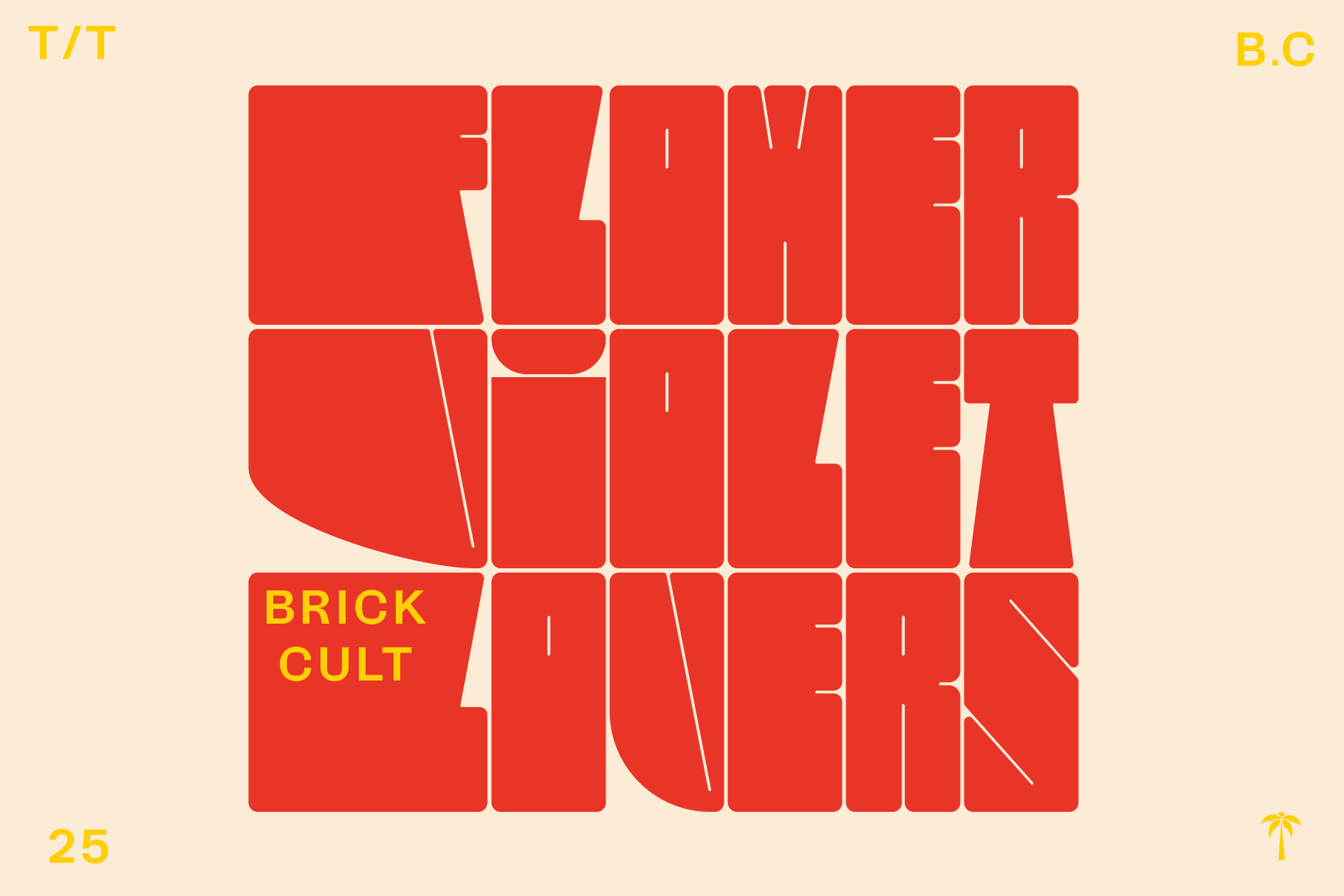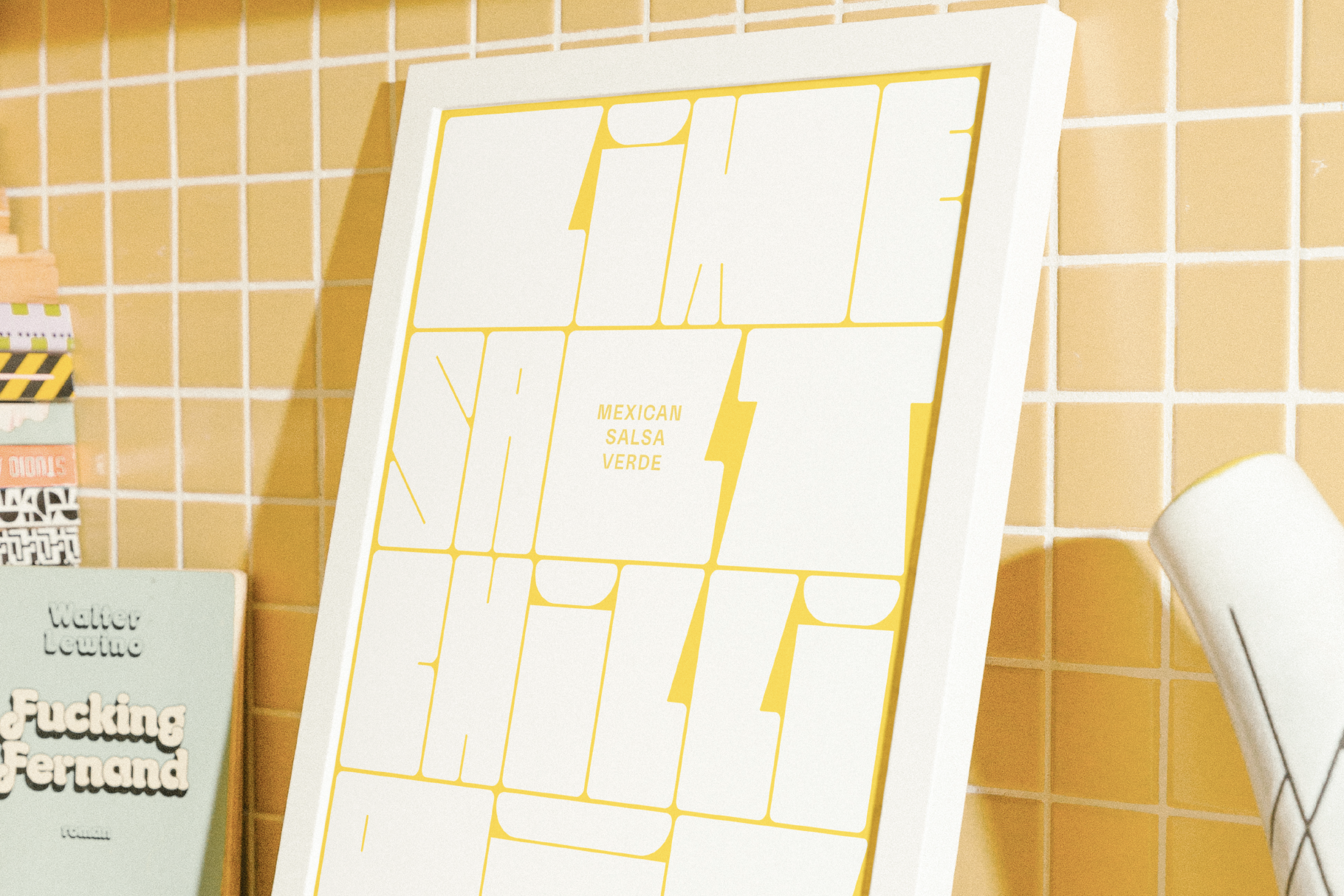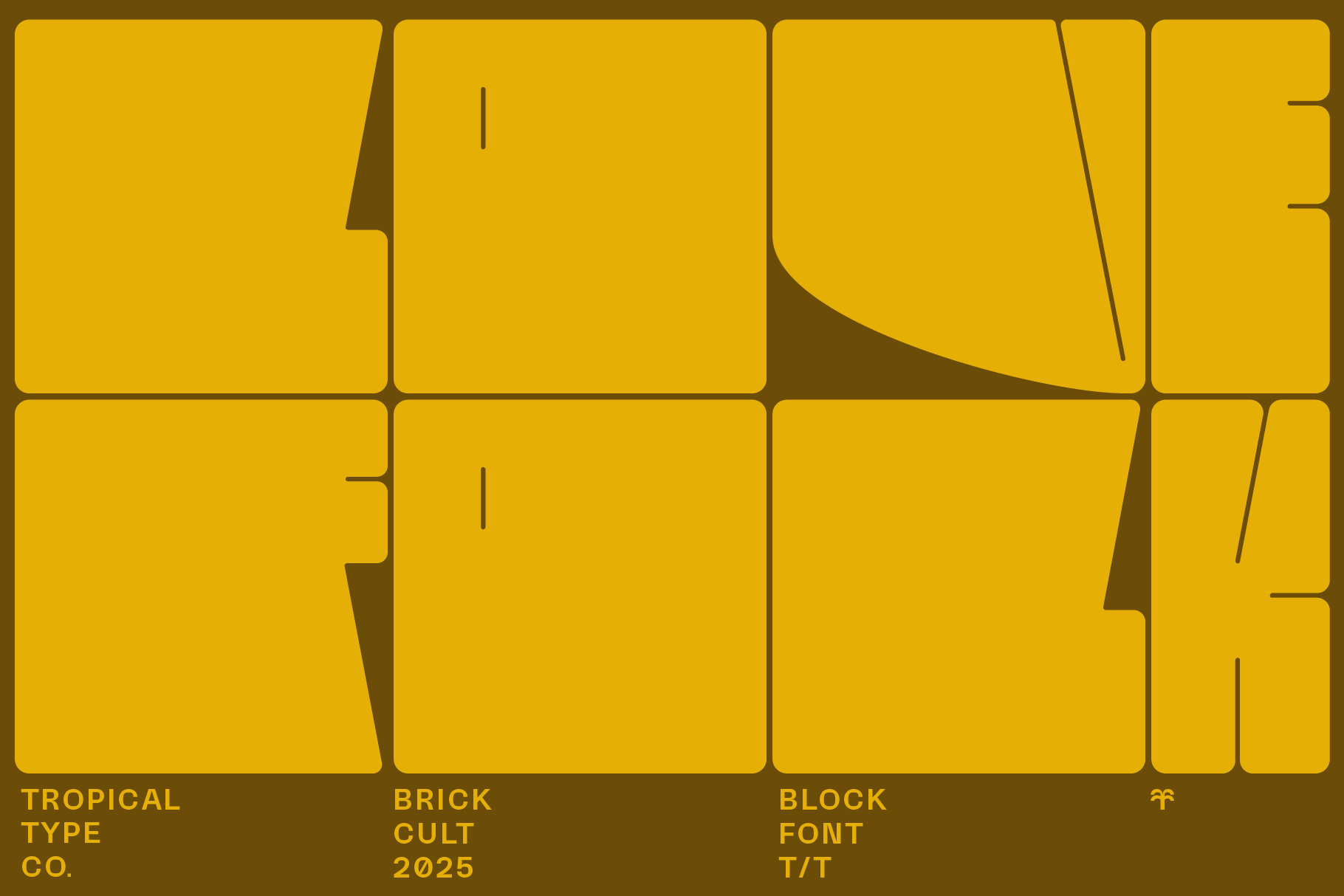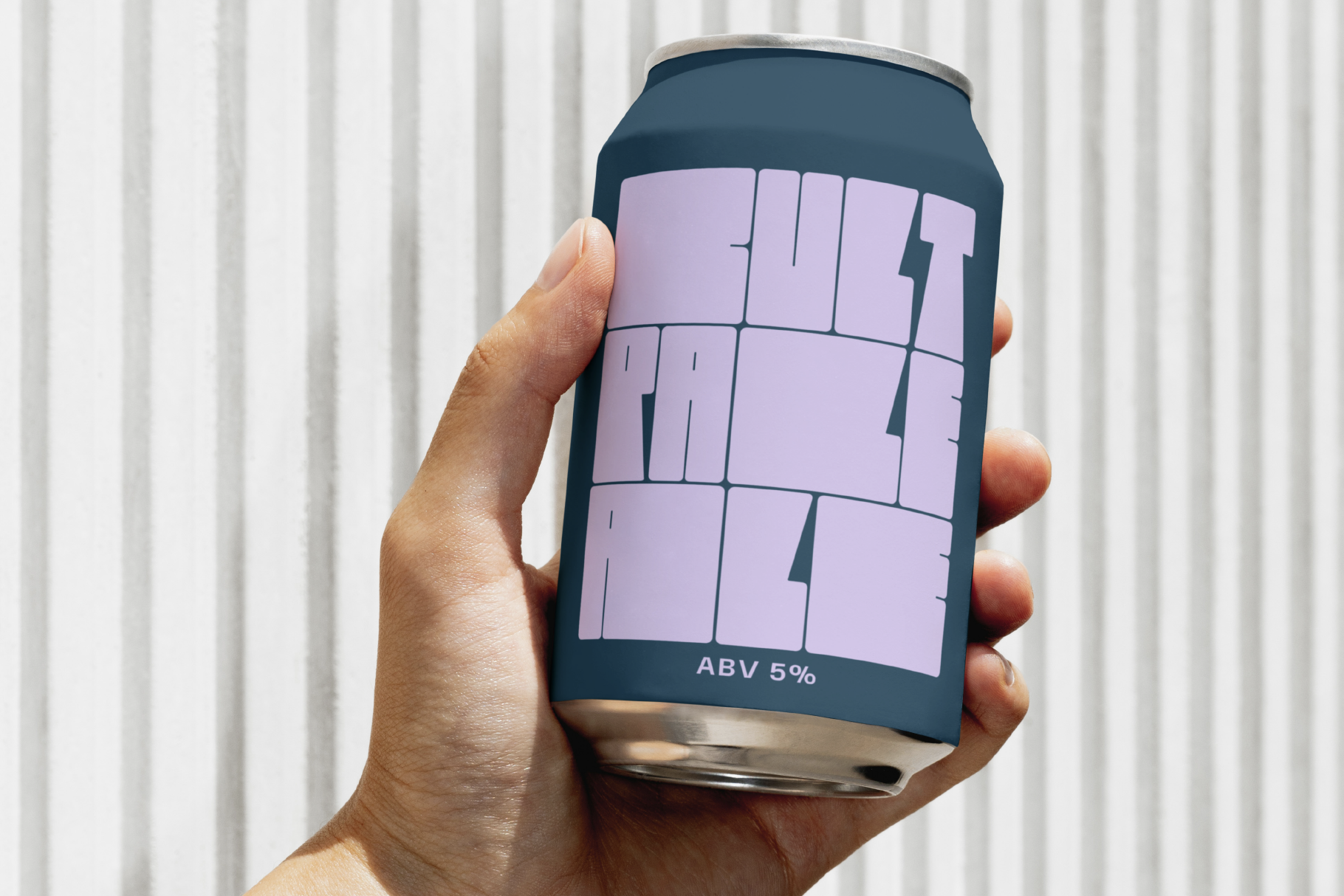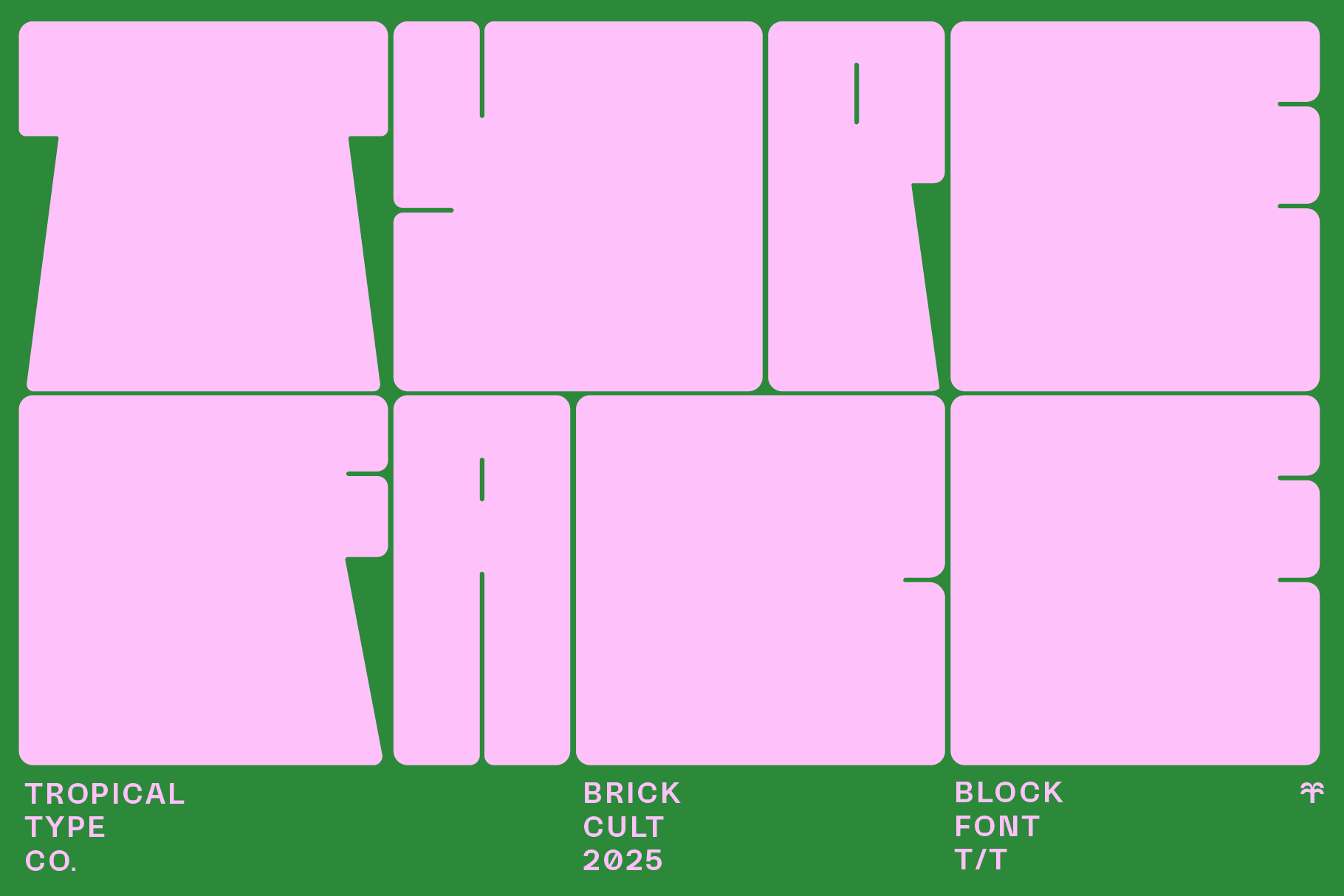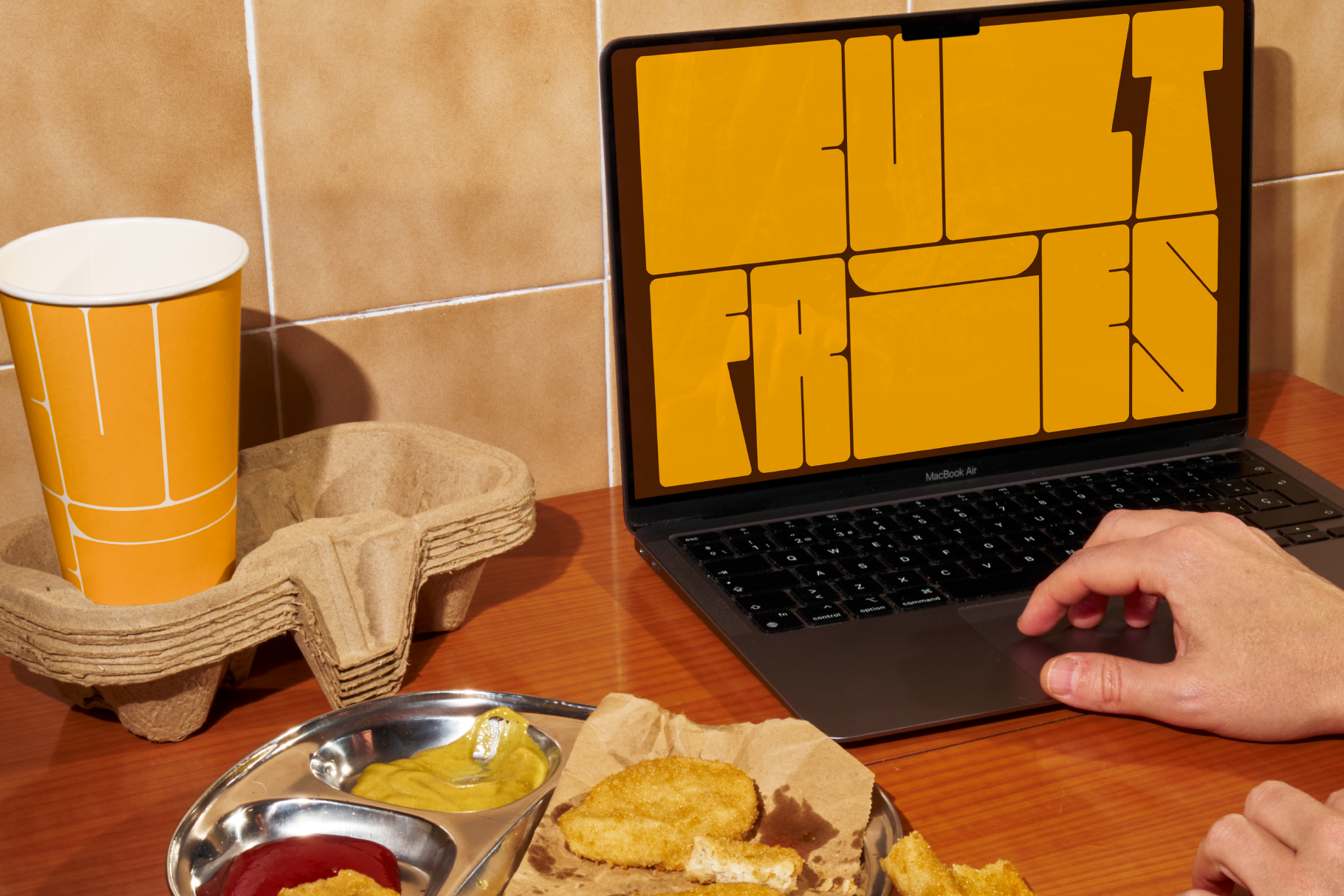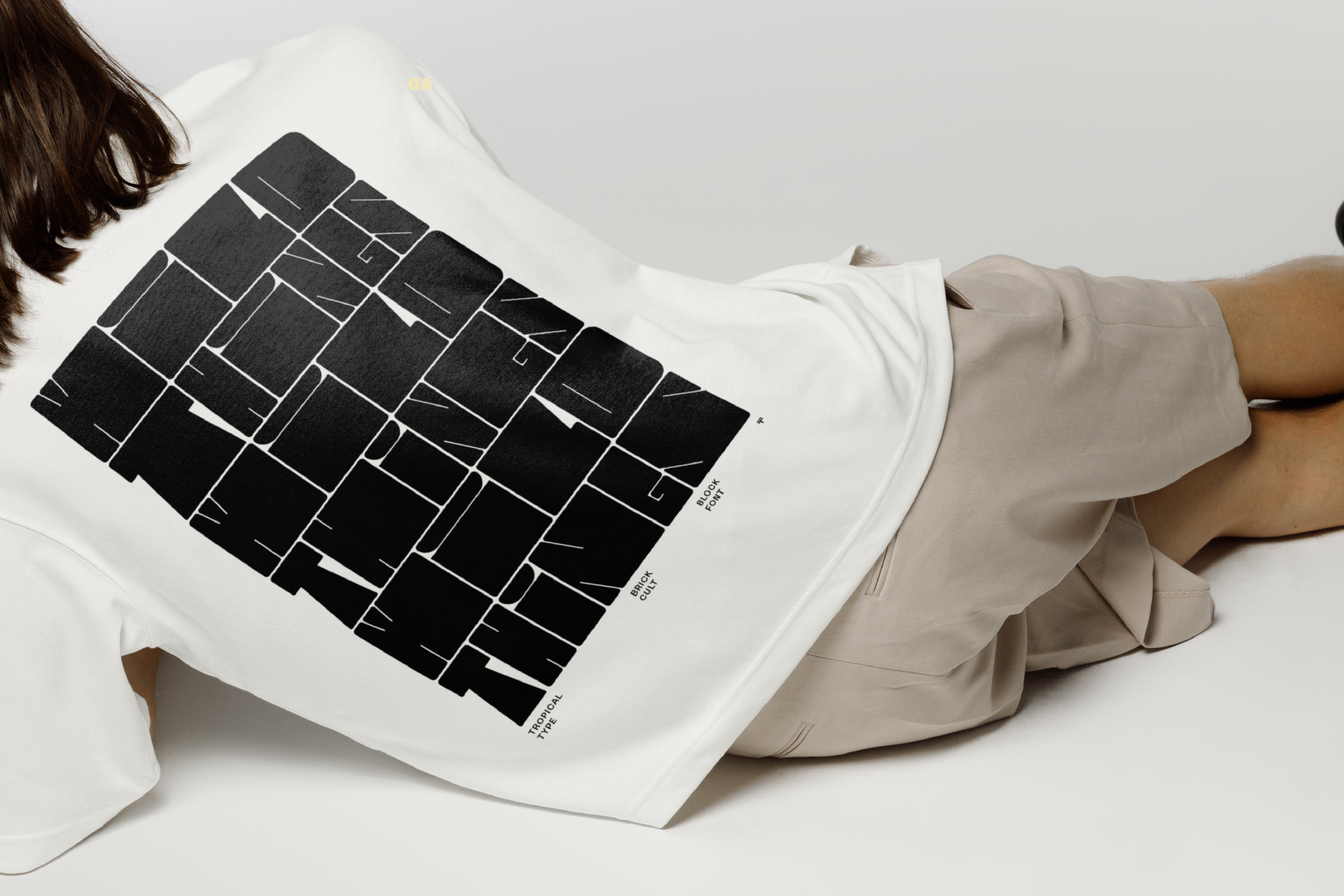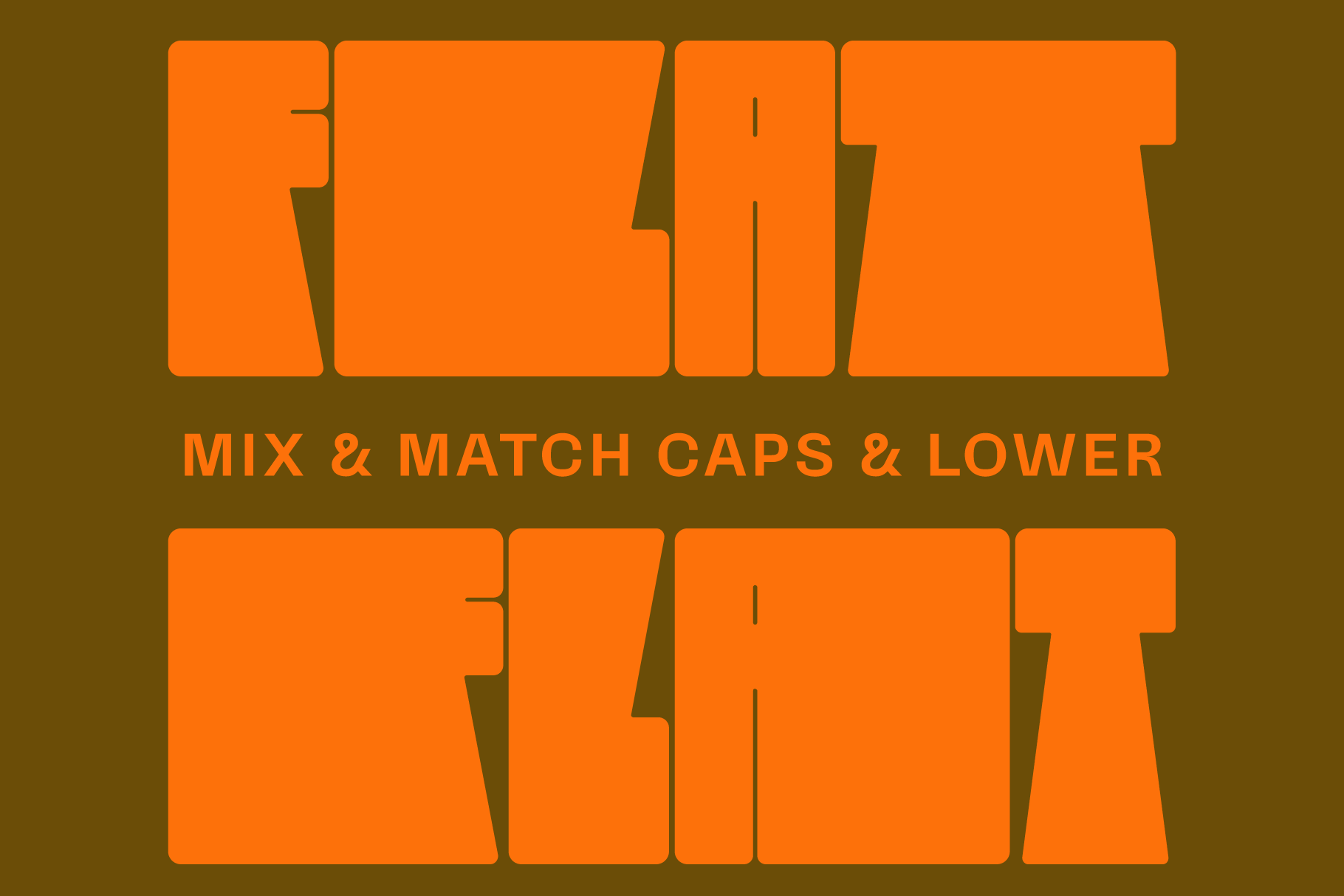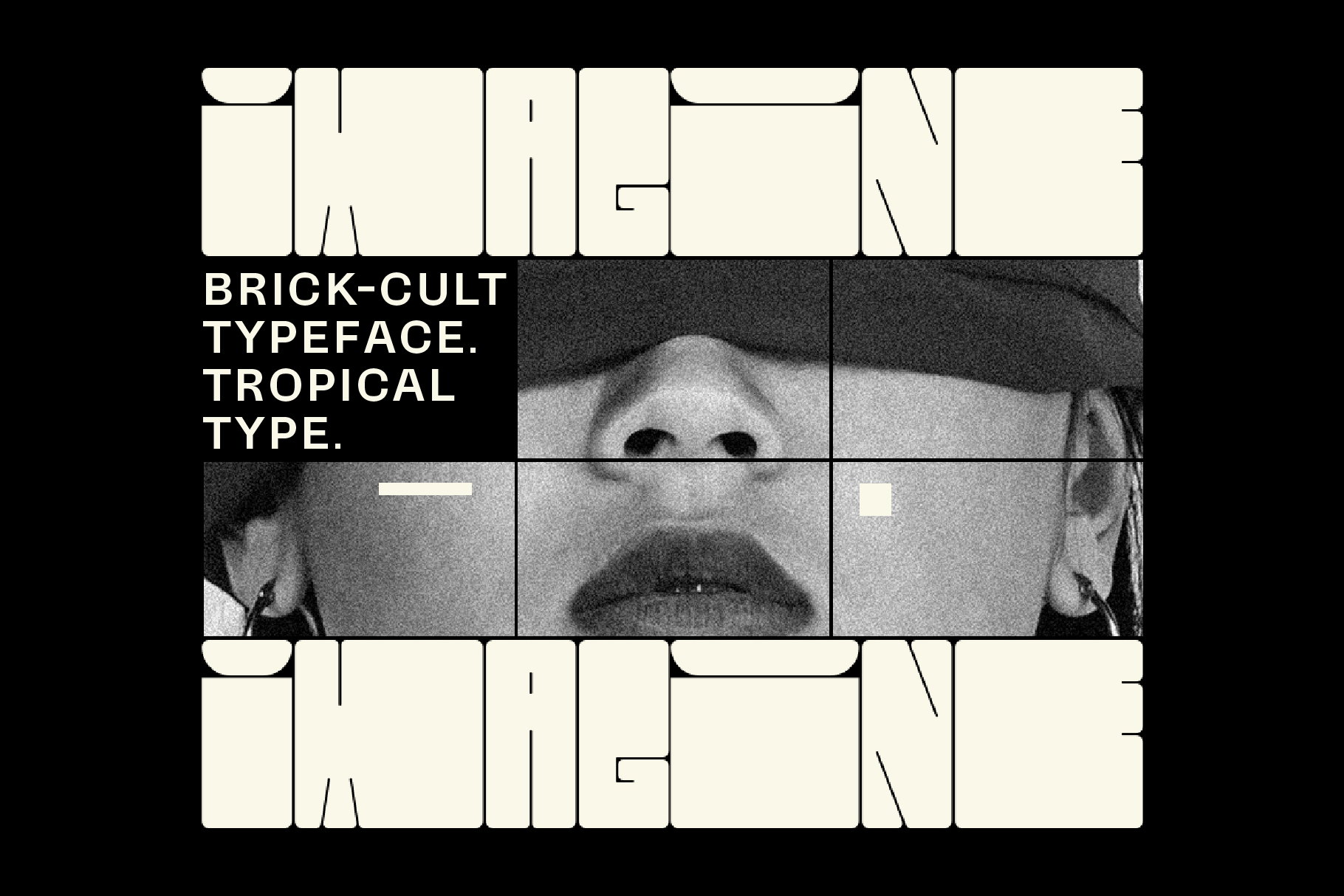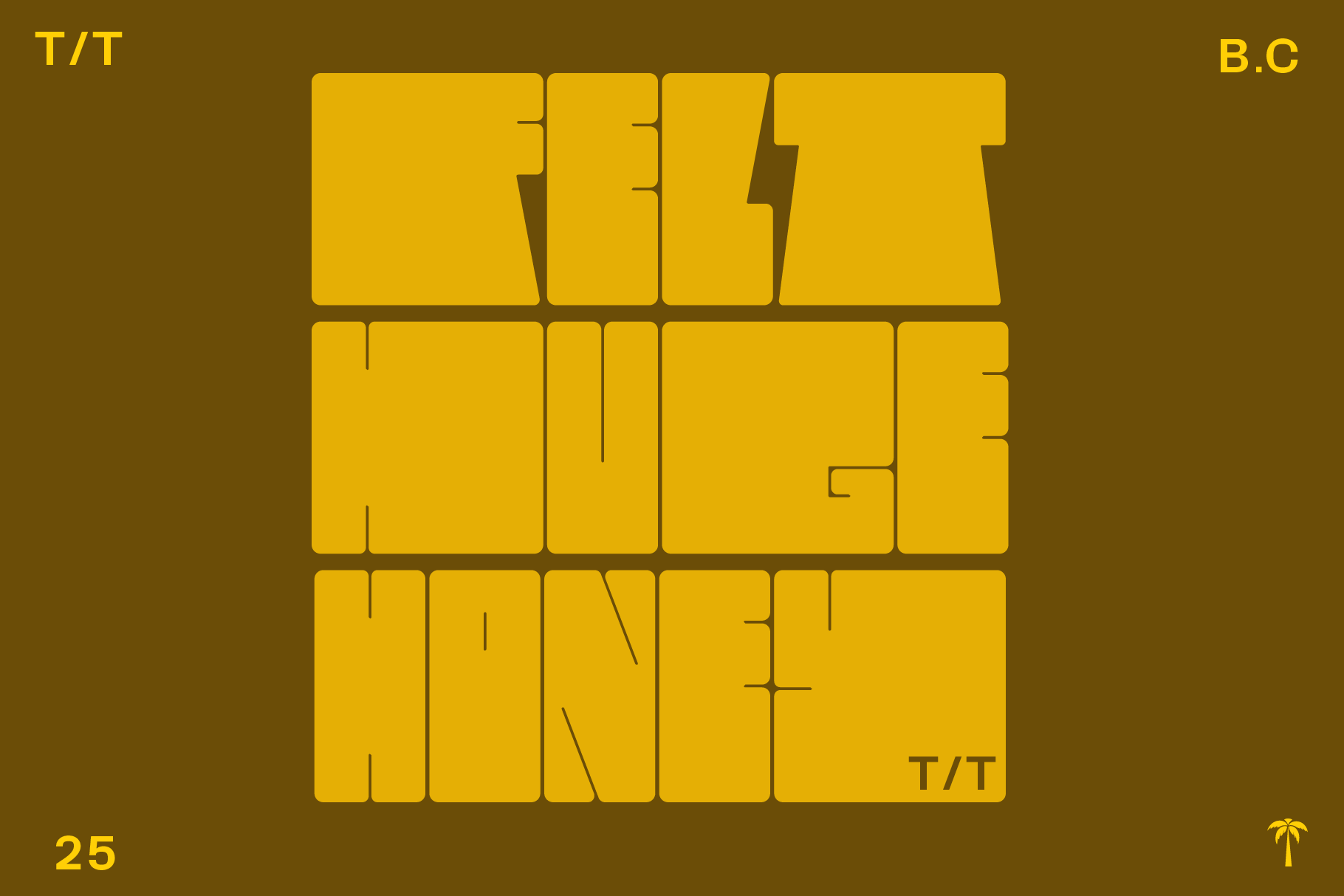
Brick Cult
Brick Cult is an experimental as it gets. Chunky block letter that go together like Tetris.
Use it as a background with text over the top, or straight up for posters & logos. Mix and Match the caps and lowercase to get the perfect width.